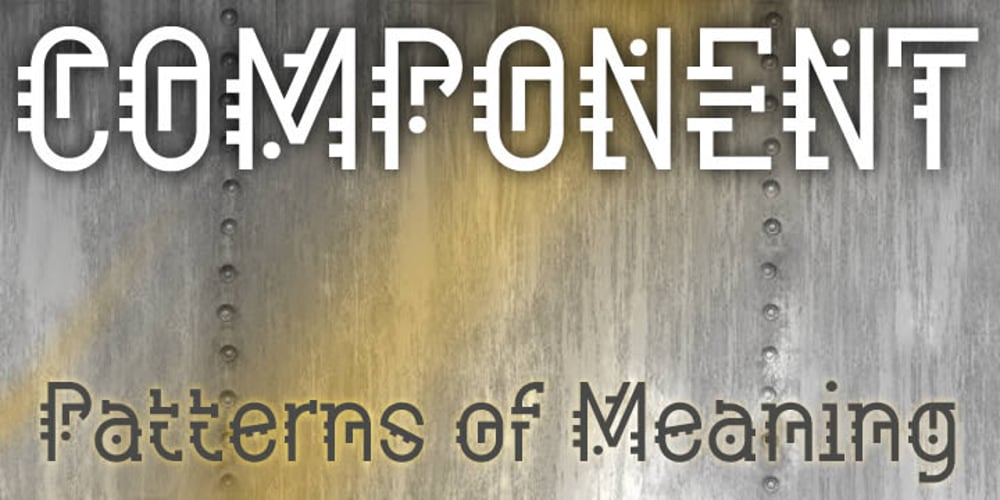
Component Font Family was designed by Keith Bates and published by K-Type. Component contains 2 styles and family package options. Component evokes the aesthetics of machine-readable matrix barcodes such as QR and Aztec codes, but it could just as easily invoke ancient rituals from a lost civilization. Component is a book-weight, condensed geometric font with patterns of meaning that lie somewhere between mechanization and magic. And there’s a free italic.